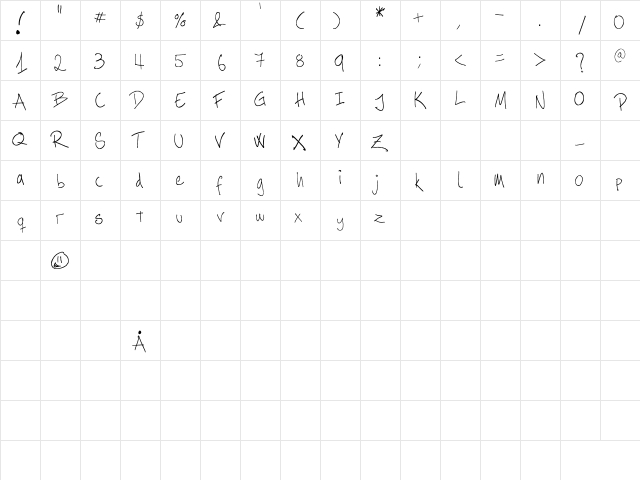
The1 Hand
| Foundry | High-Logic |
| Designer | High-Logic - Erwin Denissen 1999 |
Design Context for The1 Typeface
The1 flows with the natural rhythm of handwritten lettering, making it ideal for designs that call for warmth and personal expression.